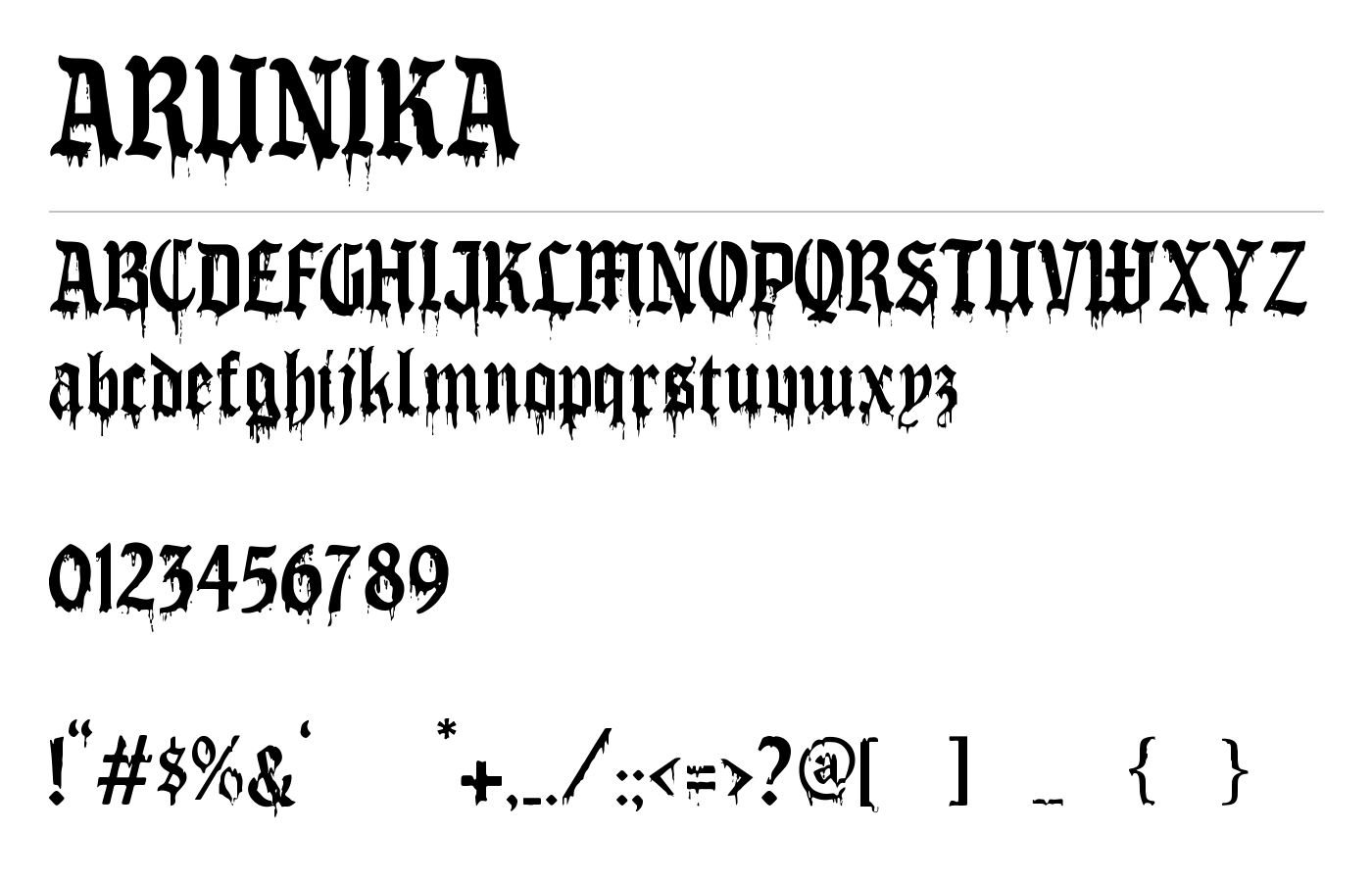
ARUNIKA is a bold, decorative serif font with a dramatic, dripping effect that adds a spooky, gothic flair. Its strong vertical strokes and sharp serifs create a striking presence, making it perfect for Halloween-themed designs, posters, or any project seeking a dark, eerie atmosphere. This font works best in headlines or display use where its unique style can grab attention and set a moody tone.
ARUNIKA Font
About ARUNIKA Font